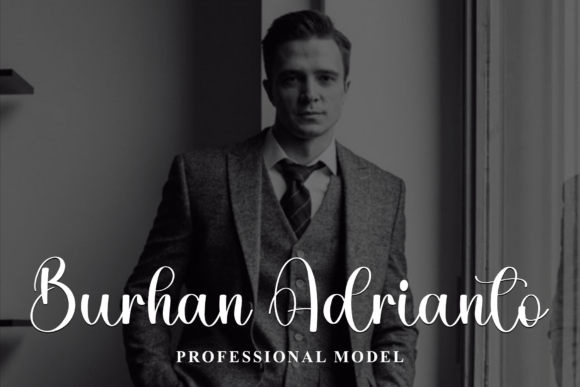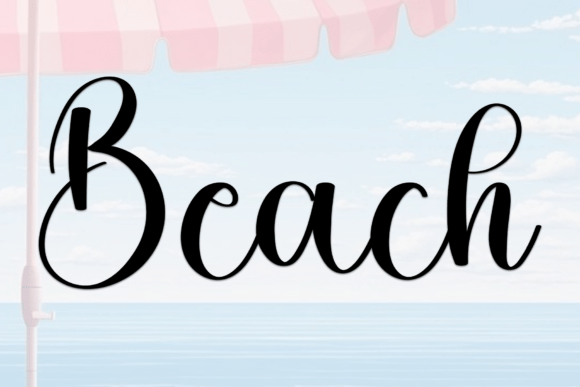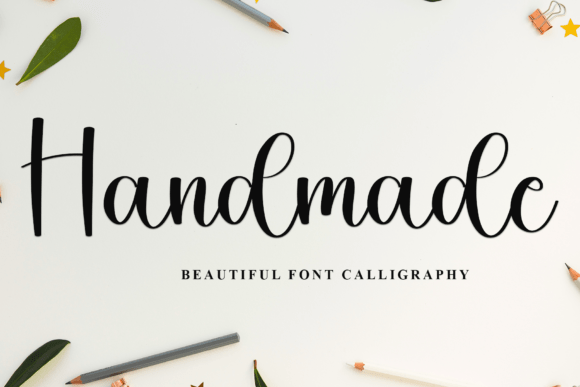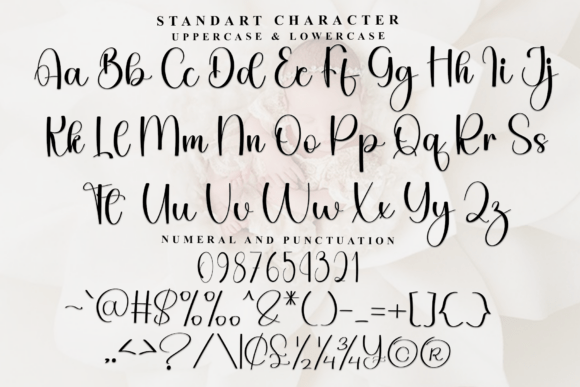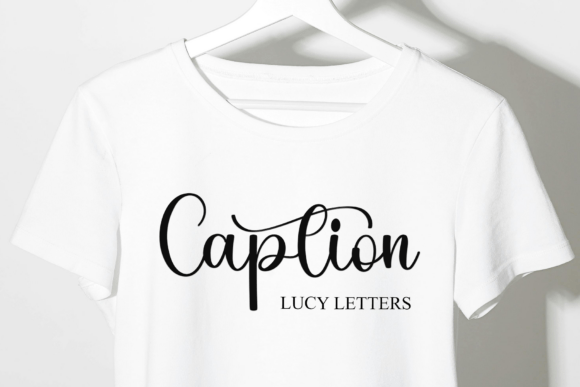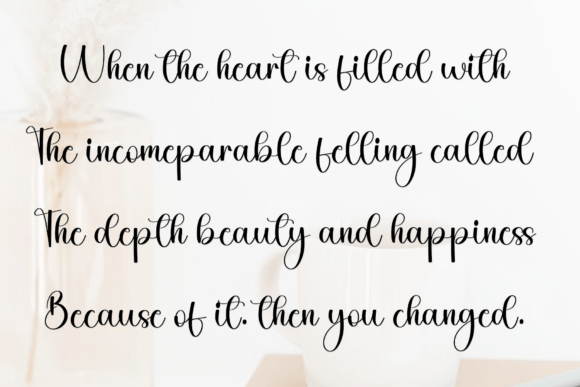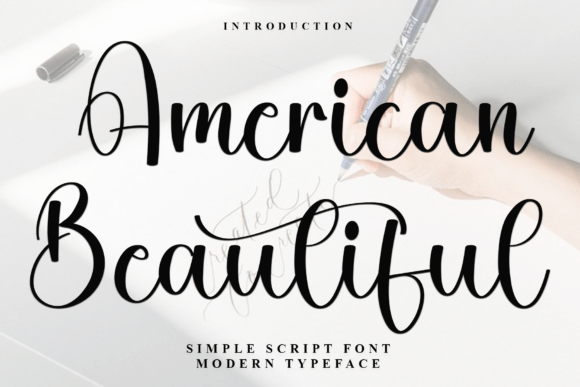
Discover the Charm of American Beautiful Font: Elevate Your Designs with Elegance
In the realm of typography, few fonts capture the essence of beauty and versatility as effectively as the American Beautiful Font. This exquisite font, designed with a soft and unique touch, has been making waves in the design community for its distinctive strokes and wide range of applications. Whether you’re a seasoned designer, a crafty DIY enthusiast, or simply someone looking to add a touch of elegance to your projects, American Beautiful Font is an excellent choice.
The Unique Appeal of American Beautiful Font
What sets American Beautiful Font apart from other fonts is its special character, which is both meaningful and versatile. The font’s design is not just about aesthetics; it’s about creating a connection with the audience. Its soft, flowing lines and distinctive strokes make it perfect for a wide array of creative projects, from digital designs to handmade crafts. The font’s unique appeal lies in its ability to convey emotion and add a personal touch to any design.
One of the key advantages of American Beautiful Font is its versatility. This font is not limited to a specific type of project or medium. It can be used in various applications, including but not limited to:
• Digital designs: From website headers to social media graphics, American Beautiful Font can elevate your digital presence.
• Crafts: Whether you’re making personalized gifts, decorations, or cards, this font adds a touch of elegance.
• Print materials: It’s perfect for brochures, posters, and any other print materials where you want to make a lasting impression.
Enhance Your Designs
Incorporating American Beautiful Font into your designs can significantly enhance their appeal. The font’s natural and elegant style makes it easy to pair with various design elements, ensuring that your projects stand out. Here are a few tips on how to make the most of this beautiful font:
• Pair it with simple backgrounds: Let the font be the focal point of your design.
• Experiment with colors: The font works well with both pastel shades and bold colors.
• Mix and match: Combine American Beautiful Font with other fonts for a unique look.
The Perfect Choice for Designers and Crafters
For designers and crafters looking for a font that can add a touch of elegance and personality to their work, American Beautiful Font is an excellent choice. Its wide range of characters and compatibility with various applications make it a versatile tool for creative projects. Whether you’re working on a professional design or a personal craft, this font can help you achieve the desired effect.
American Beautiful Font is more than just a font; it’s a design element that can elevate your projects and make them more appealing to a wide audience. Its unique charm, versatility, and compatibility make it an ideal choice for designers and crafters across different artistic and creative fields. By incorporating American Beautiful Font into your designs, you’re not just adding words; you’re adding emotion, elegance, and a personal touch that resonates with your audience.